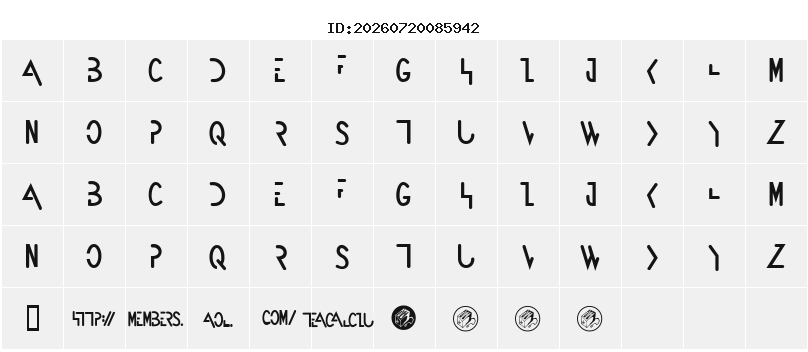
About Futureman.ttf
Futureman.ttf is a modern, elegant sans-serif font designed for ultimate readability and visual harmony. Perfect for branding, headlines, web design, and print materials.